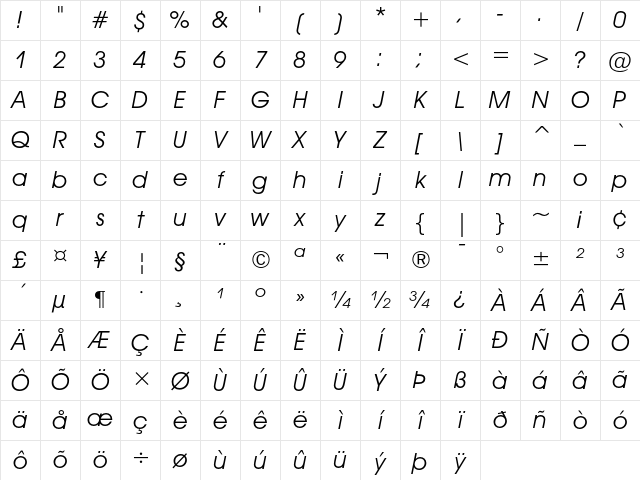
ITC Avant Garde Gothic Book Oblique
Style: Book Oblique
ITC Avant Garde Gothic Family
ITC Avant Garde Gothic Book Oblique
Complete ITC Avant Garde Gothic Book Oblique glyph index. Displaying only characters natively supported by ITC Avant Garde Gothic Book Oblique font.
Design Context for ITC Avant Garde Gothic
ITC Avant Garde Gothic takes a clean, functional approach - its unadorned letterforms prioritise legibility and work reliably across screen and print environments. The slanted form adds forward momentum and visual energy.
Font Pairing: Works well alongside a characterful serif or display font that can carry the expressive load while ITC Avant Garde Gothic handles the functional copy.
Pro Tip: Use ITC Avant Garde Gothic for UI labels, navigation, and short-form body copy where clean legibility is the priority.